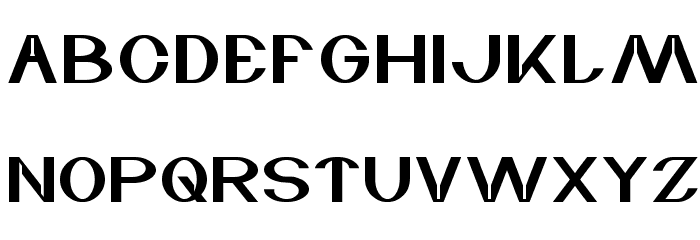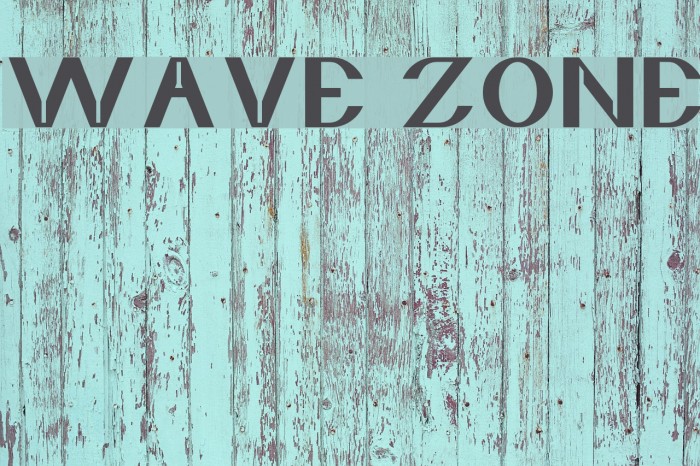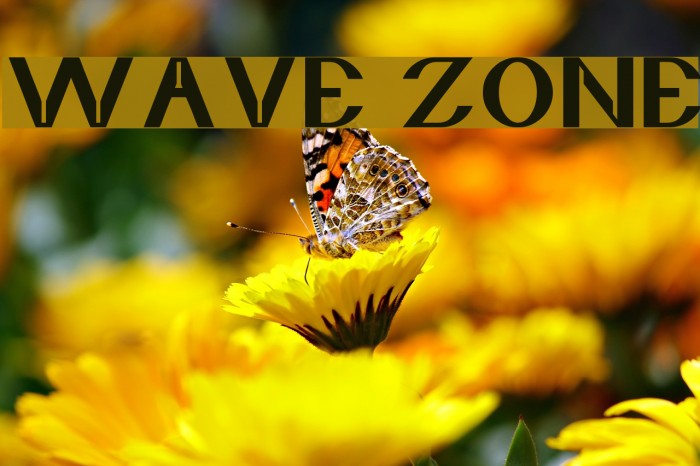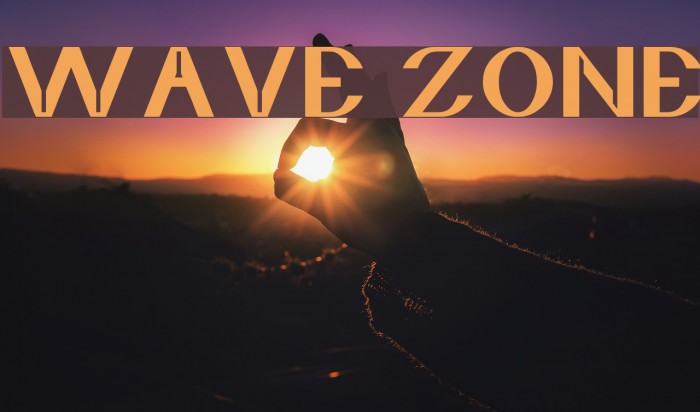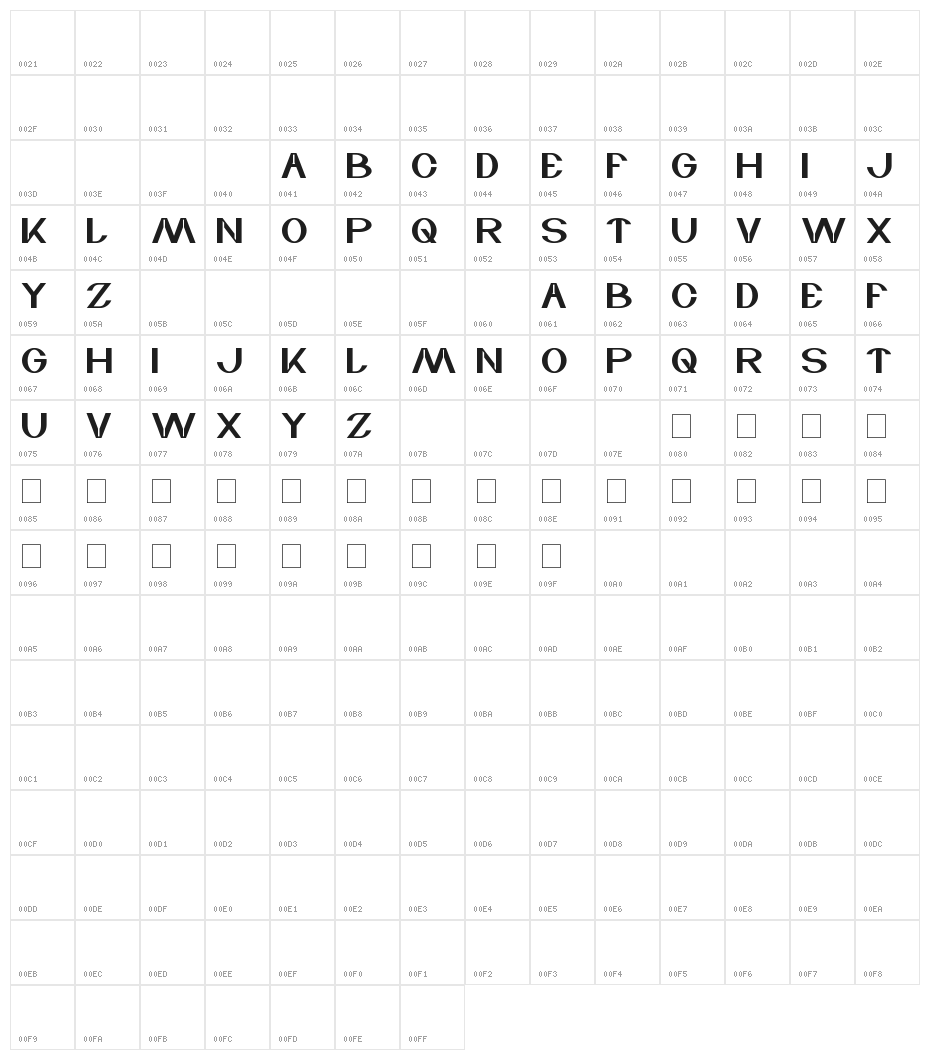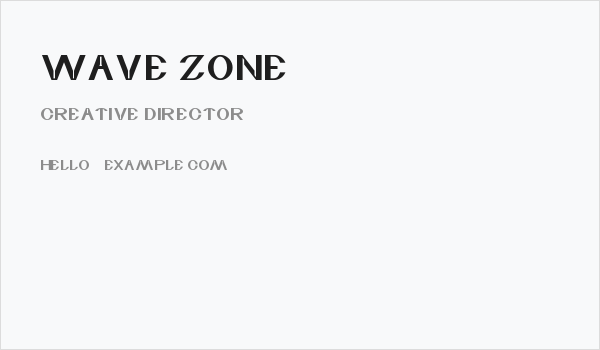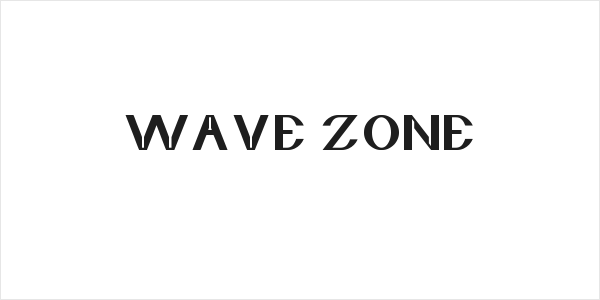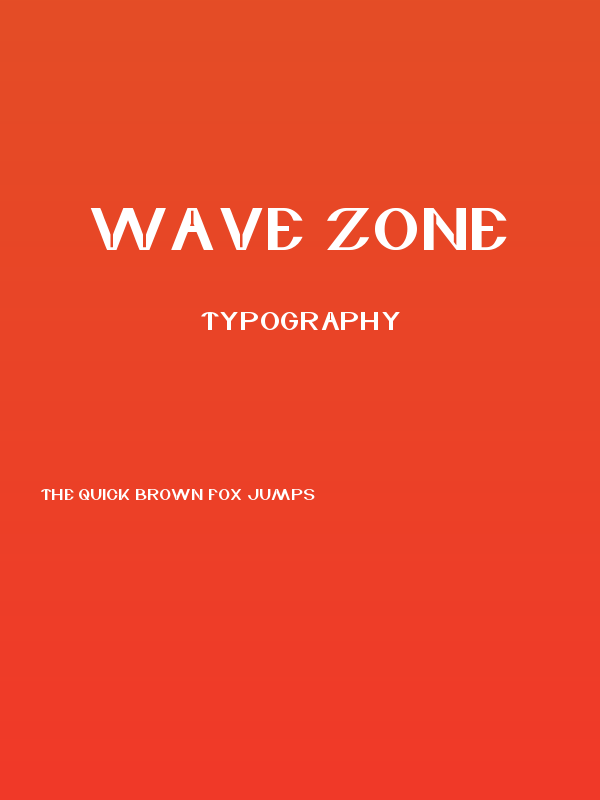
wave zone Font
This font features a bold and striking design with a unique wave-like element incorporated into the structure of each letter. The uppercase letters are particularly distinctive, with sharp angles and a modern aesthetic that captures attention. The font maintains a consistent weight throughout, providing a sense of balance and uniformity. The characters are evenly spaced, ensuring readability while maintaining a visually appealing flow. This font is ideal for projects that require a contemporary and edgy look, making it suitable for branding, advertising, and digital media.
A bold, modern font with unique wave-like elements and consistent weight.
- Proposed Projects: Ideal for branding, advertising, digital media, and any project needing a contemporary edge.